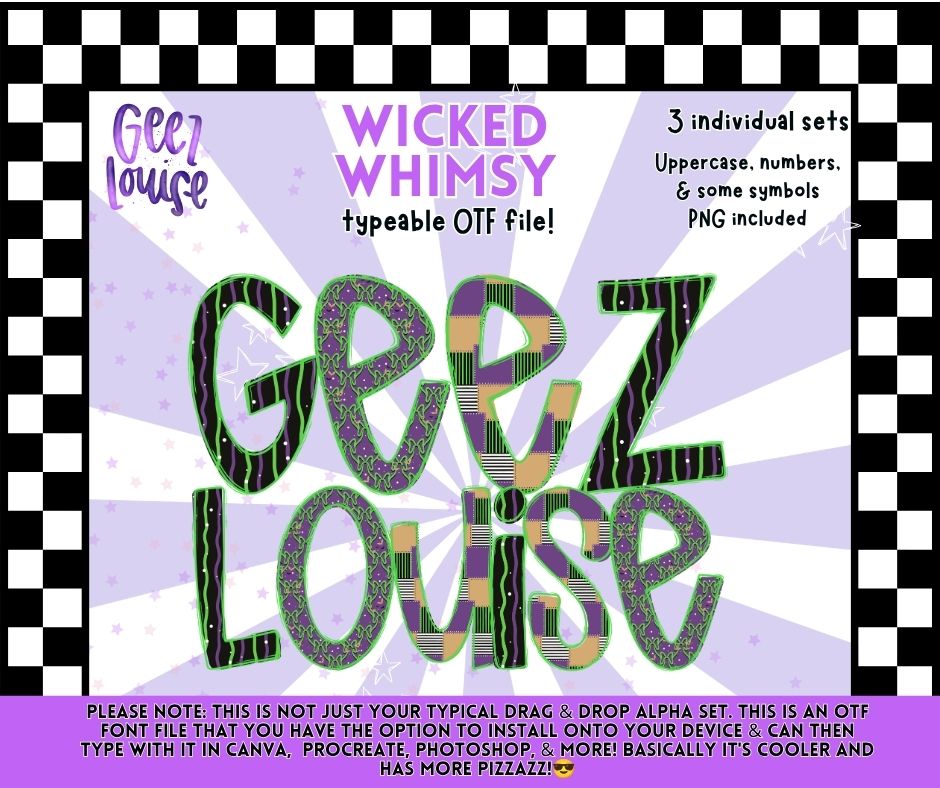
Wicked Whimsy OTF Font Bundle | 3 Halloween Alphabets | PNG Alpha Included | August 26 Combo Drive & Alpha Drive
Get three spooky styles in one with the Wicked Whimsy OTF Font Bundle! This Halloween-inspired collection includes three unique alphabet designs plus matching PNG alpha sets.